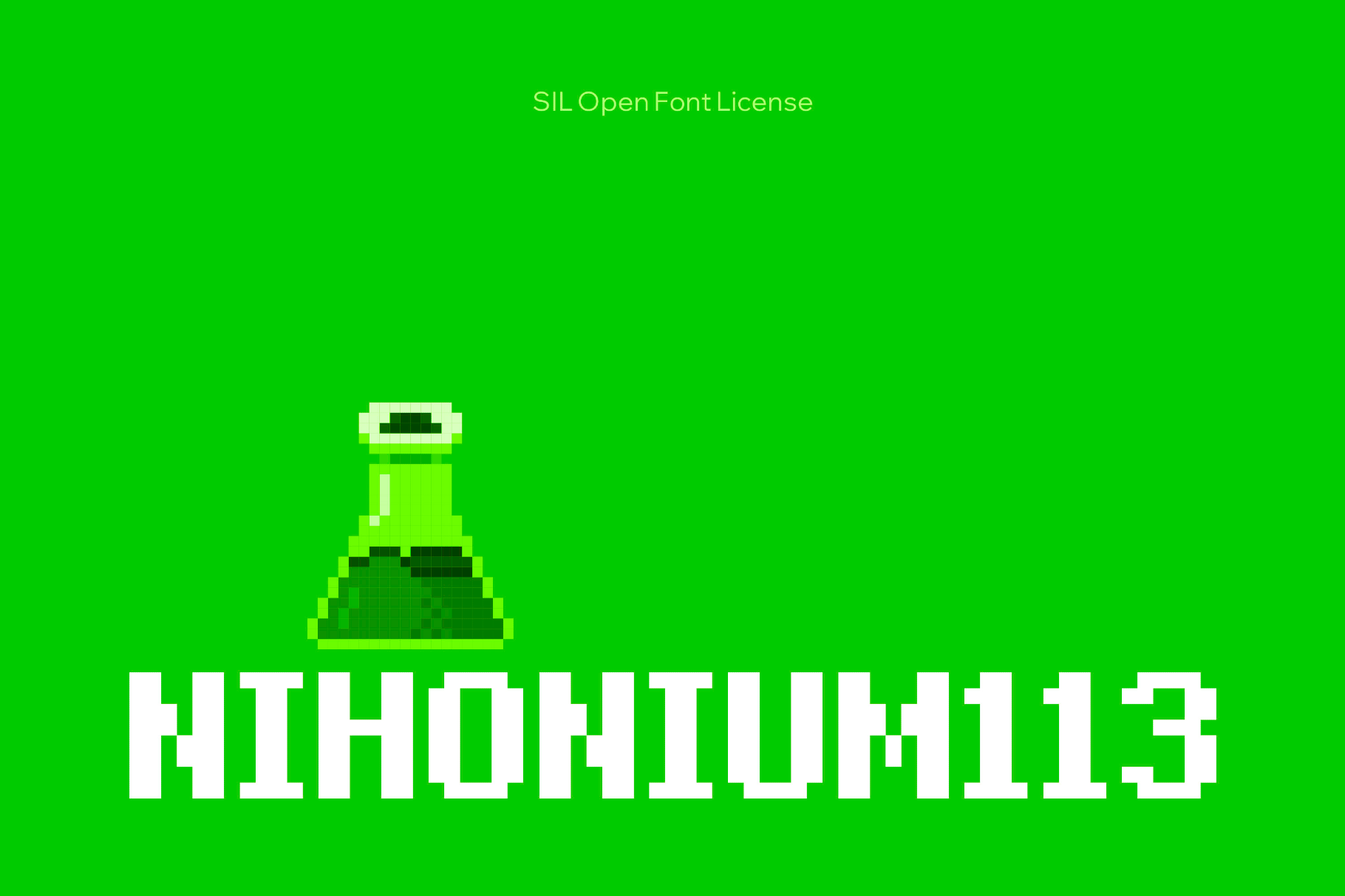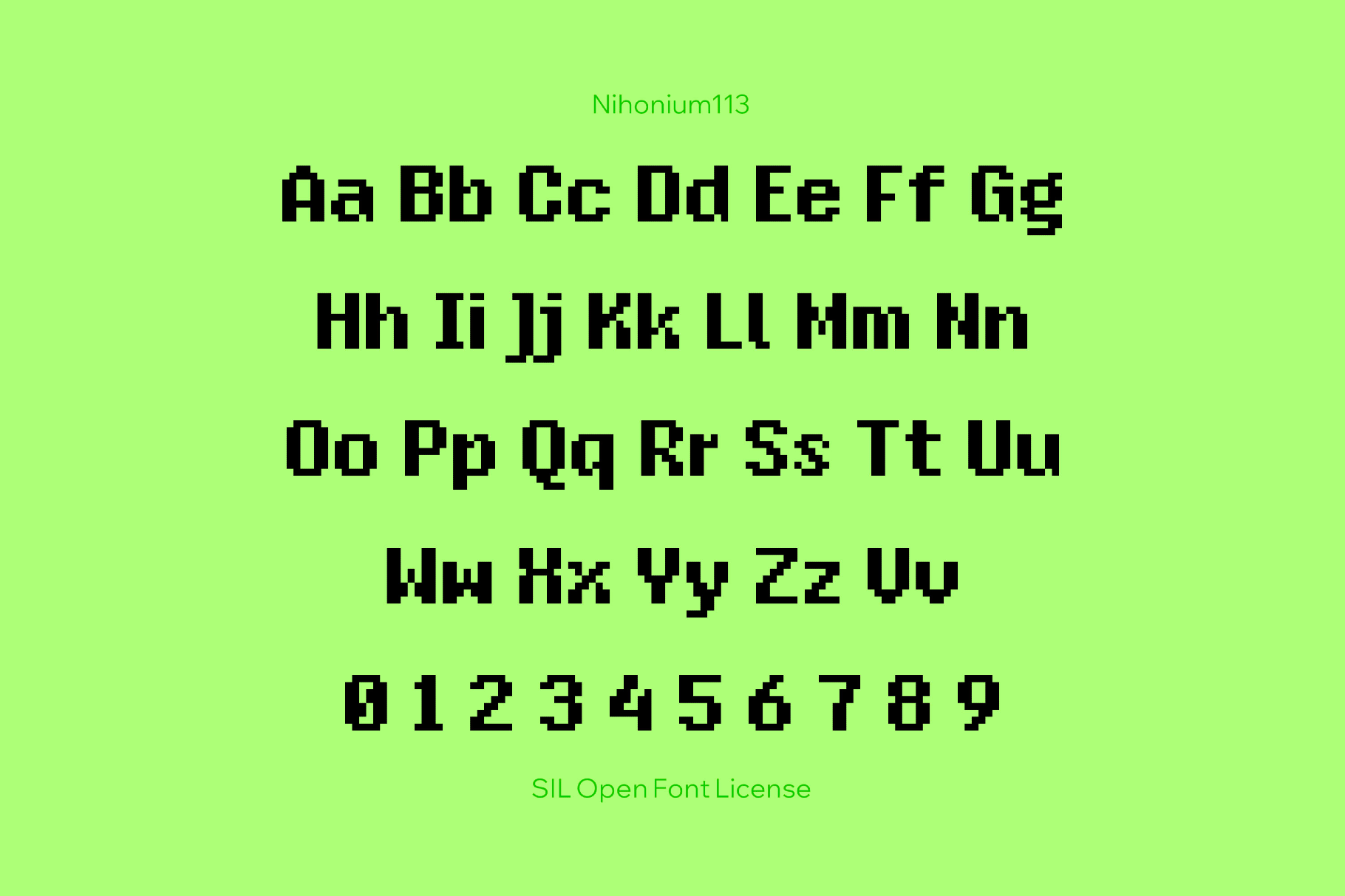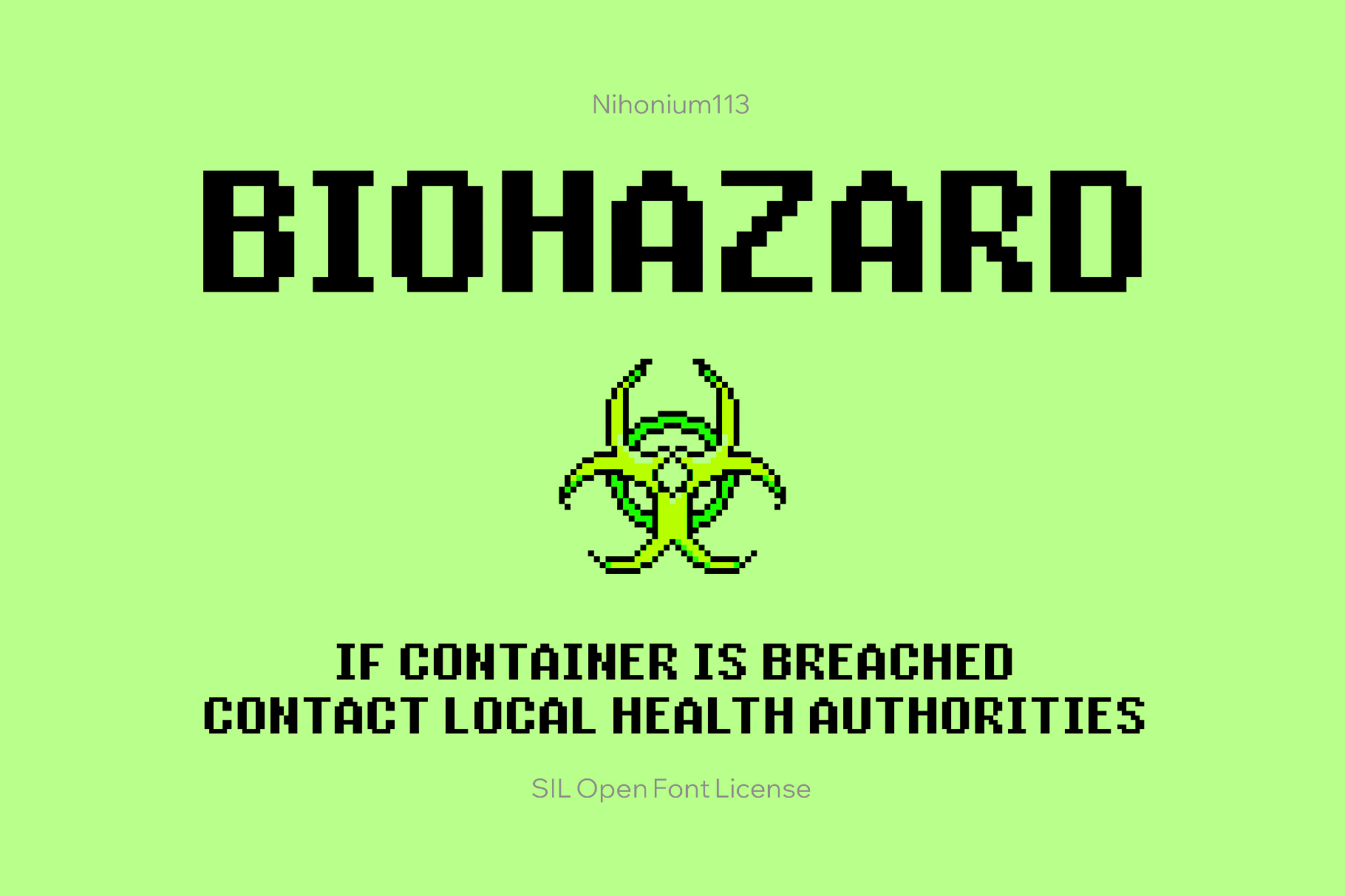
Nihonium113 Pixel Font
Nihonium113
Nihonium113 is a pixel sans with early-UI energy, built from square modules, locky curves, stepped diagonals, and tight spacing and crisp strokes. It works well for game UIs, sidebar annotations, infographics, coding and hardware magazines, pixel-art captions, speech bubbles, sci-fi games, arcade or puzzle game logos, tech-focused event posters, and desktop mockups.
- Uppercase and lowercase letters, numbers, punctuation, symbols, international characters, extra symbols, and extended mathematical metrics.
- Extended multilingual coverage across extended Latin, Cyrillic, Katakana, and Greek scripts.